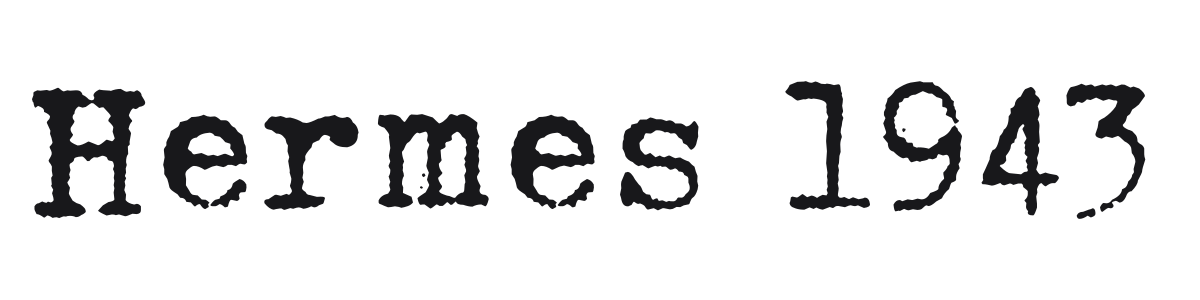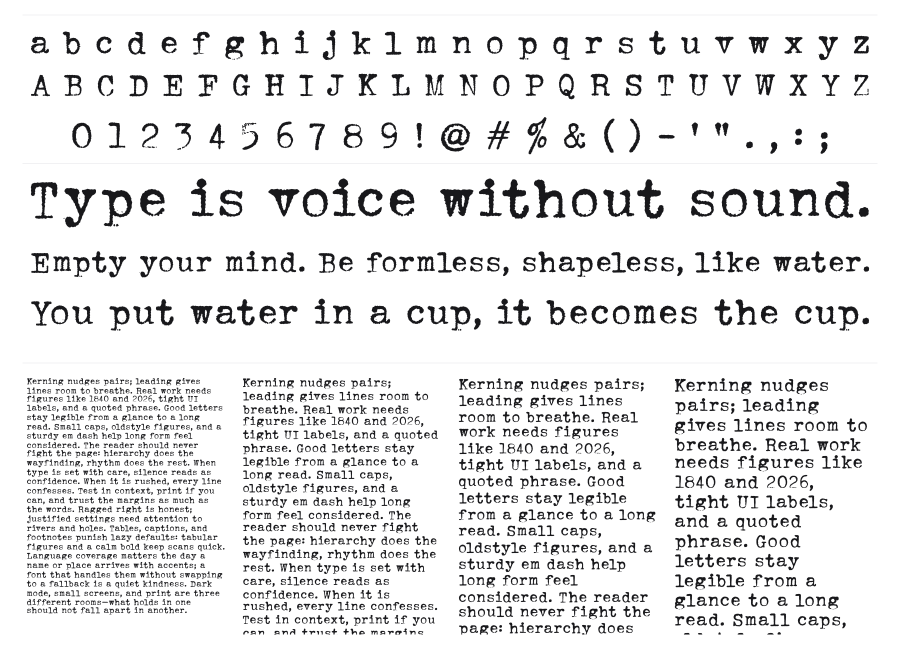
Hermes 1943
Hermes 1943 is a distressed typewriter font modeled on the look of aged mechanical type from the Second World War era. The letters carry convincing ink erosion and uneven edges that feel genuinely worn rather than artificially textured. It brings immediate period authenticity to wartime graphics, historical editorial work, and vintage-themed branding.